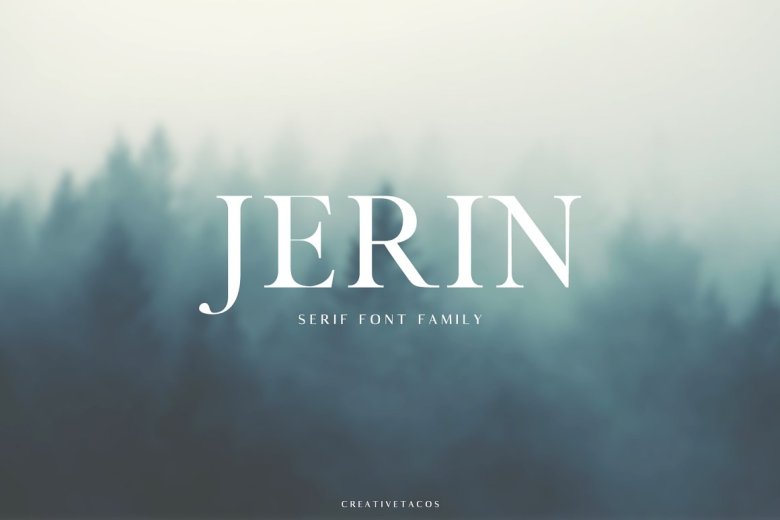
Jerin Font
Jerin is a stylish and sophisticated, sleek lines ‘serif’ font it looks great no matter where you put it. All standard glyphs are included with Non-English characters as well. This font will go perfectly with any sans-serif, script, display, signature and handwriting typeface.
It is suitable for headlines or titles in newspapers and magazines, logo, advertising, posters, quotes on cards or websites invitations to design (web) typography book covers branding work nearly all creative designs that you can imagine.
Jerin Serif Font